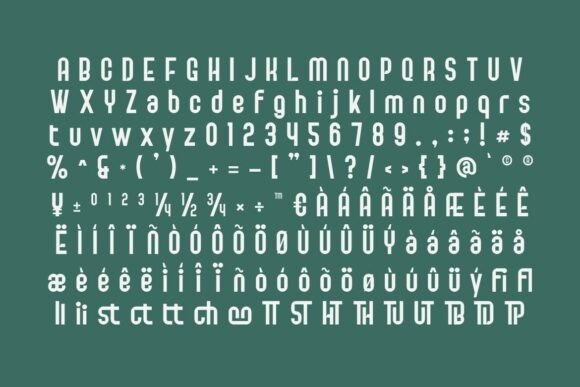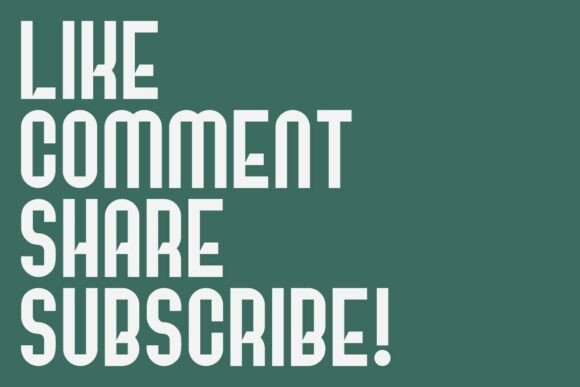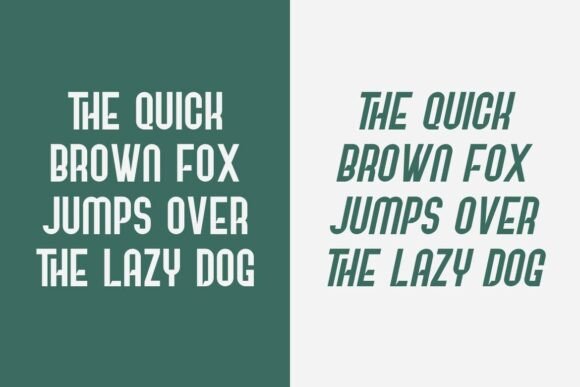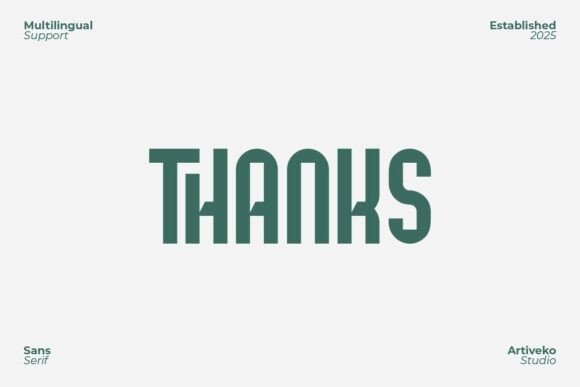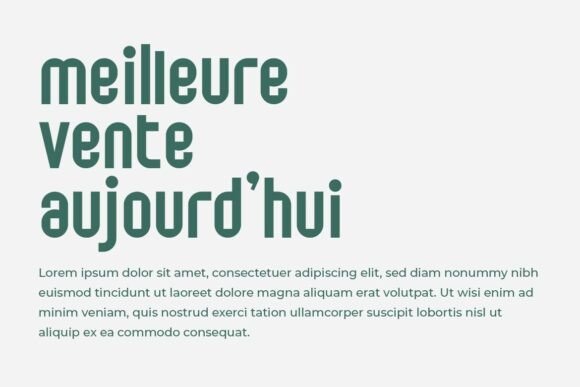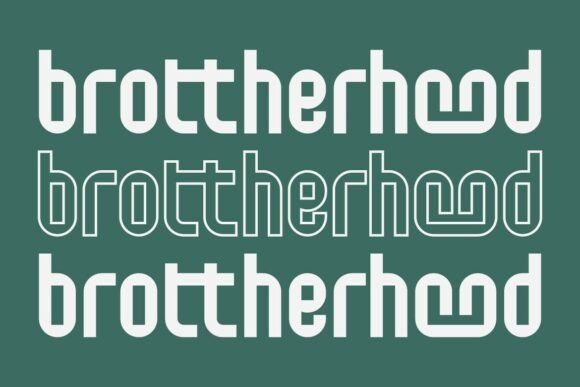
Introducing Ellina Font: The Epitome of Modern Sans Serif Typography
In the realm of typography, a well-crafted font can elevate your design, convey your brand’s personality, and leave a lasting impression on your audience. Ellina Font is a stunning example of contemporary sans serif typography, expertly designed to bring simplicity, sophistication, and a touch of modern elegance to your visual projects. With its smooth curves, clean lines, and balanced proportions, Ellina is poised to become your go-to font for a wide range of applications, from branding and editorial layouts to web design, packaging, and social media graphics.
The Design Philosophy Behind Ellina
Ellina’s design is rooted in the principles of modern typography, where simplicity and clarity are paramount. The font’s creator aimed to craft a typeface that not only looks beautiful but also communicates effectively, ensuring that your message is conveyed with precision and style. Ellina’s refined features and sleek appearance make it an excellent choice for designers and crafters seeking a font that can adapt to various contexts and mediums.
Key Features of Ellina Font
- Smooth Curves and Clean Lines: Ellina’s curves are meticulously designed to be smooth and flowing, while its lines are clean and unadorned, resulting in a font that exudes a sense of modernity and freshness.
- Balanced Proportions: The font’s proportions are carefully balanced to ensure optimal readability and aesthetic appeal, making it suitable for both digital and print applications.
- Timeless Modern Look: Ellina’s design strikes a perfect balance between contemporary flair and timeless elegance, ensuring that your designs remain relevant and stylish for years to come.
- Versatility: Whether you’re working on branding, editorial layouts, web design, packaging, or social media graphics, Ellina is an excellent choice, offering a versatile typographic solution that can adapt to various contexts.
Applications of Ellina Font
Ellina’s versatility makes it an excellent choice for a wide range of design projects. Here are some examples of how you can utilize this beautiful font:
- Branding: Establish a strong brand identity with Ellina’s modern and sophisticated look, perfect for logos, business cards, and brand guidelines.
- Editorial Layouts: Elevate your publications with Ellina’s clean and readable design, ideal for magazines, newspapers, and books.
- Web Design: Enhance your website’s typography with Ellina’s digital-friendly design, ensuring a seamless user experience across various devices and browsers.
- Packaging: Make a lasting impression with Ellina’s elegant and modern look, suitable for product labels, packaging, and point-of-purchase displays.
- Social Media Graphics: Stand out on social media with Ellina’s fresh and contemporary design, perfect for creating engaging graphics, posts, and stories.
Why Choose Ellina Font?
With so many fonts available, why choose Ellina? Here are a few compelling reasons:
- Unique and Memorable: Ellina’s distinctive design ensures that your typography stands out from the crowd, making your brand or design more memorable.
- Highly Legible: The font’s clean lines, balanced proportions, and careful attention to detail ensure optimal readability, even at small sizes.
- Easy to Pair: Ellina’s neutral design makes it easy to pair with other fonts, allowing you to create harmonious and visually appealing typographic combinations.
Ellina Font is a stunning example of modern sans serif typography, offering a perfect blend of simplicity, sophistication, and elegance. With its smooth curves, clean lines, and balanced proportions, Ellina is an excellent choice for designers and crafters seeking a versatile and timeless font for their visual projects. Whether you’re working on branding, editorial layouts, web design, packaging, or social media graphics, Ellina is poised to elevate your typography and leave a lasting impression on your audience.